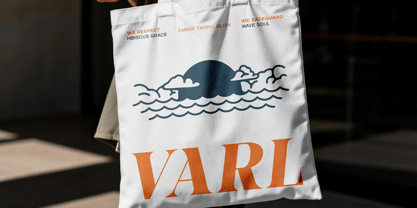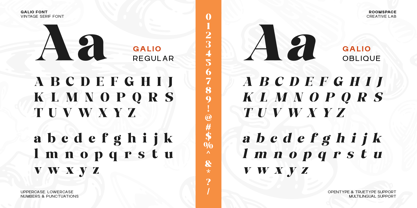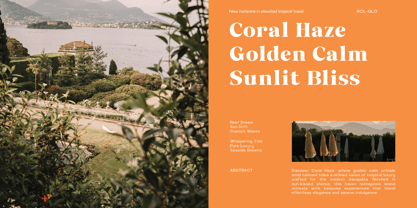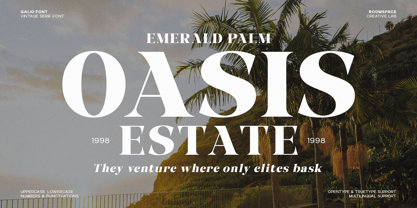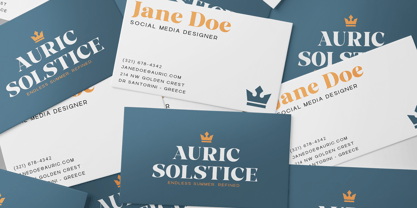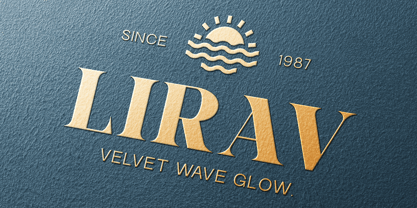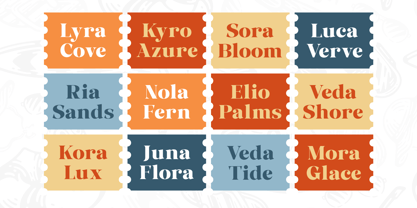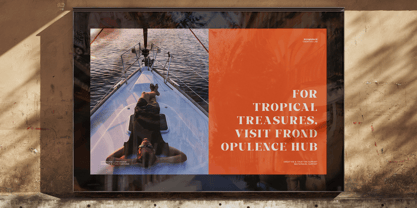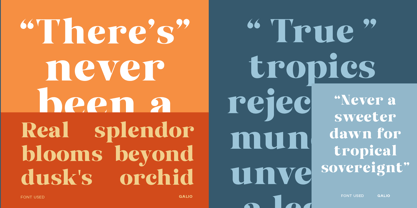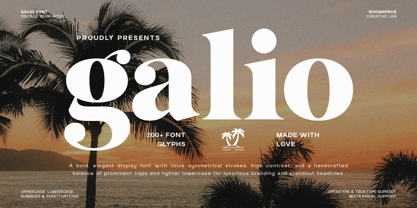
Galio
von Jafar07
Die Schriftfamilie Galio wurde von Bakhrudin Ja'far entworfen und von Jafar07 veröffentlicht. Galio enthält 2 Stile und Familienpaketoptionen. Mehr über diese Familie
Galio is an elegant vintage serif display font designed to bring character, contrast, and timeless sophistication to modern design projects. Featuring bold symmetrical strokes, high contrast letterforms, and refined curves, Galio delivers a handcrafted yet polished aesthetic. Perfect for logos, luxury branding, magazines, packaging, posters, and standout headlines, Galio balances expressive uppercase with lighter lowercase forms for strong visual hierarchy and premium readability. Features : Uppercase & lowercase characters Numbers & punctuation Multilingual support Carefully balanced spacing & contrast Perfect For : Branding, editorial layouts, luxury packaging, fashion design, posters, hotel branding, and premium visual identities.
Designer: Bakhrudin Ja'far
Foundry: Jafar07